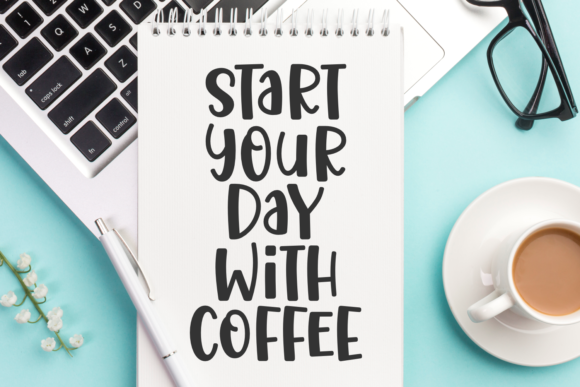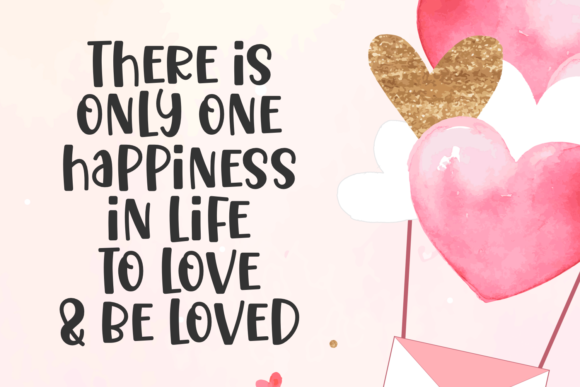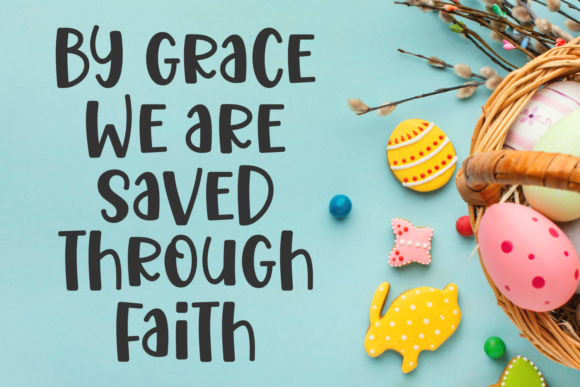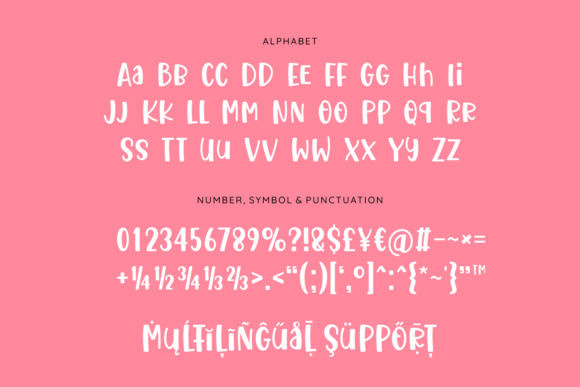
Introduction to Katien Whimsy Font Font
Fonts play a crucial role in design, and the Katien Whimsy Font font is a typeface that brings both character and versatility to any project. Whether you’re working on a branding project, a website, or a print design, the Katien Whimsy Font font offers a unique style that can elevate your work.
Katien Whimsy is a friendly handwritten font capable of taking your creations out of the ordinary.
Use this playful typeface to add a youthful and personal touch to any item .
Key Features of Katien Whimsy Font Font
Why Choose Katien Whimsy Font Font?
The Katien Whimsy Font font is more than just a typeface – it’s a design tool that helps you communicate your message with style and clarity. Its unique character set and versatile design make it suitable for a wide range of applications, from elegant invitations to bold headlines.
With its carefully crafted letterforms and balanced proportions, the Katien Whimsy Font font ensures readability and visual appeal across all mediums.
What makes Katien Whimsy Font font special?
The Katien Whimsy Font font stands out with its unique design, exceptional readability, and versatility across various design applications.